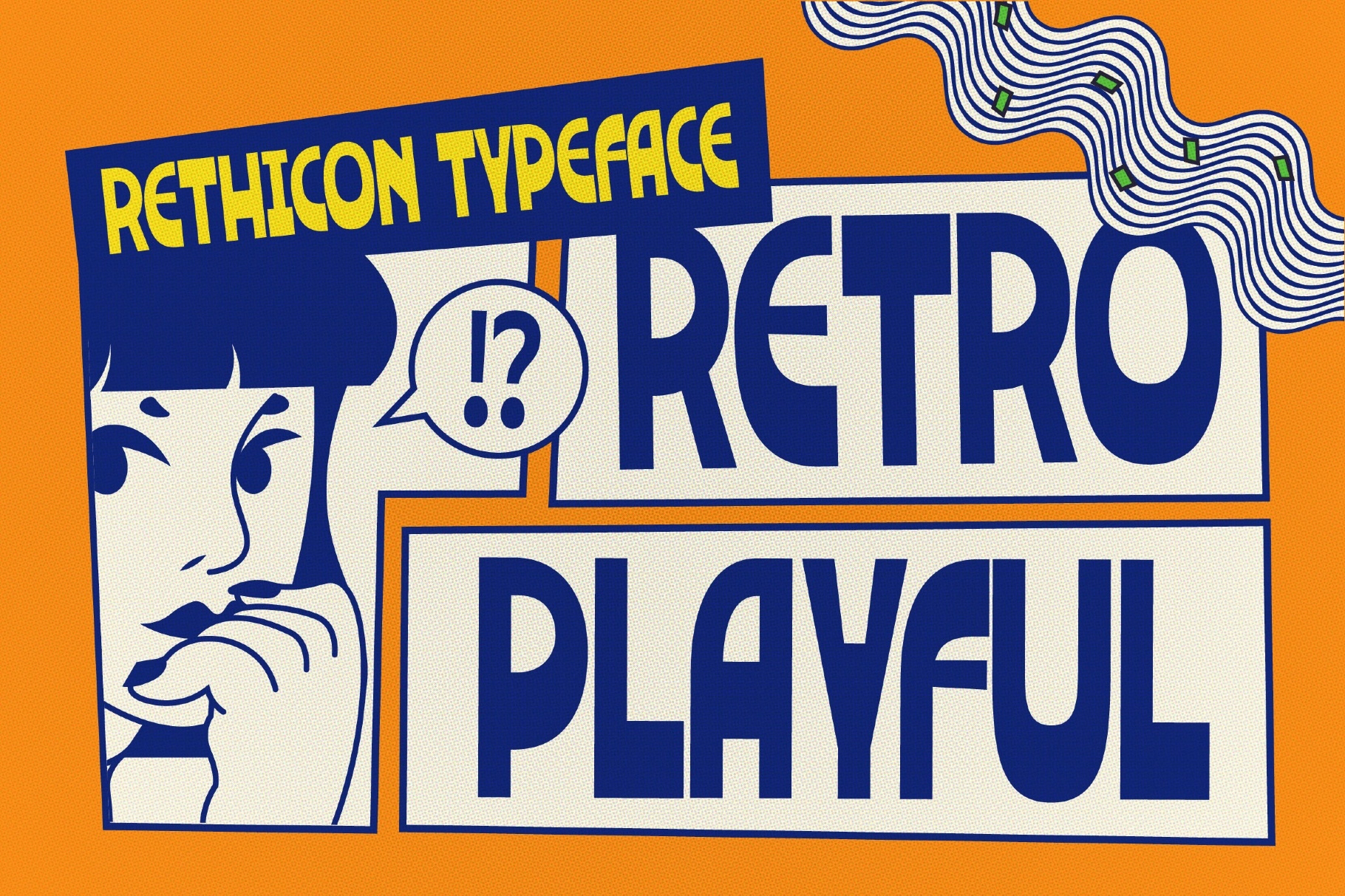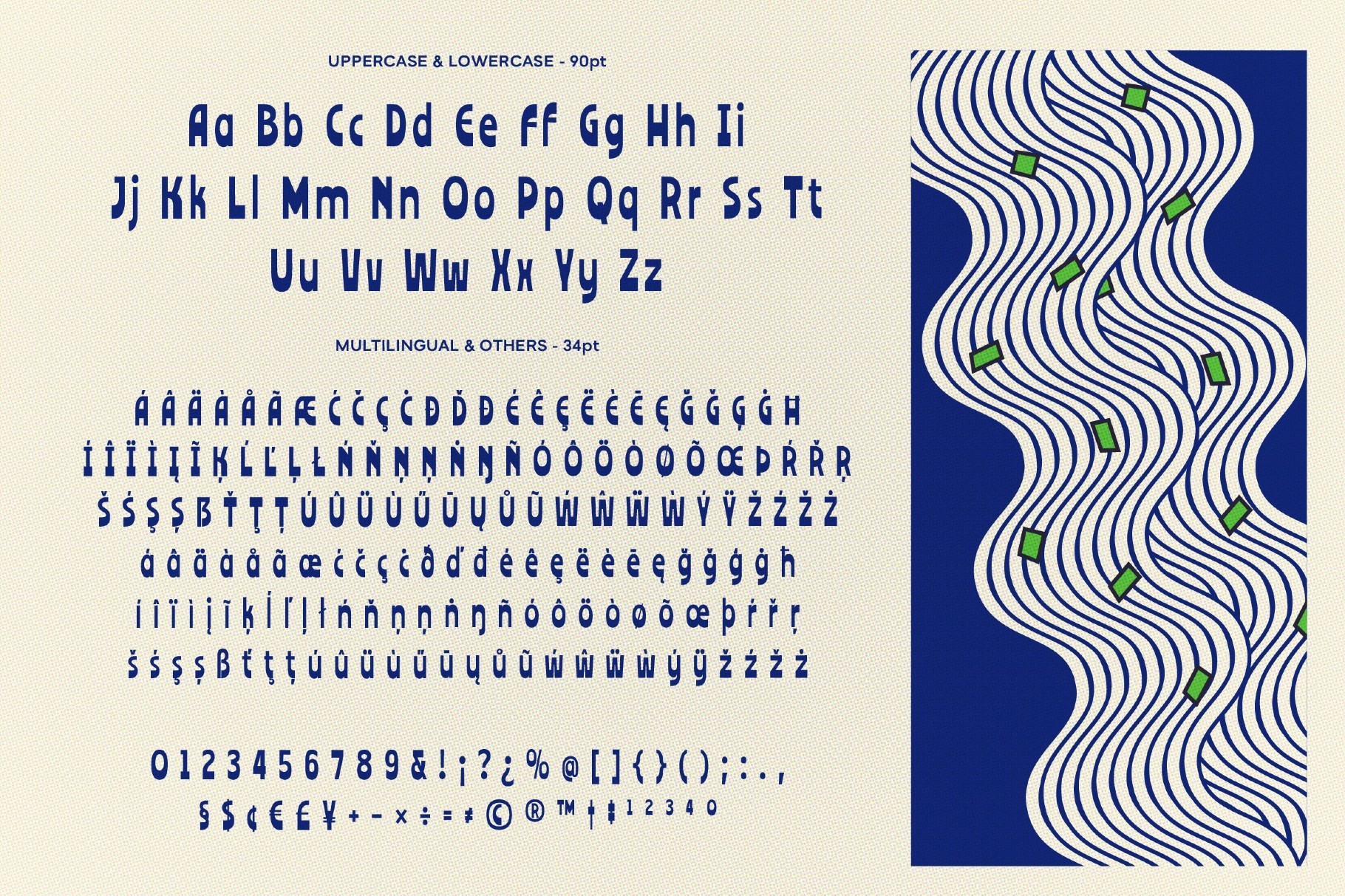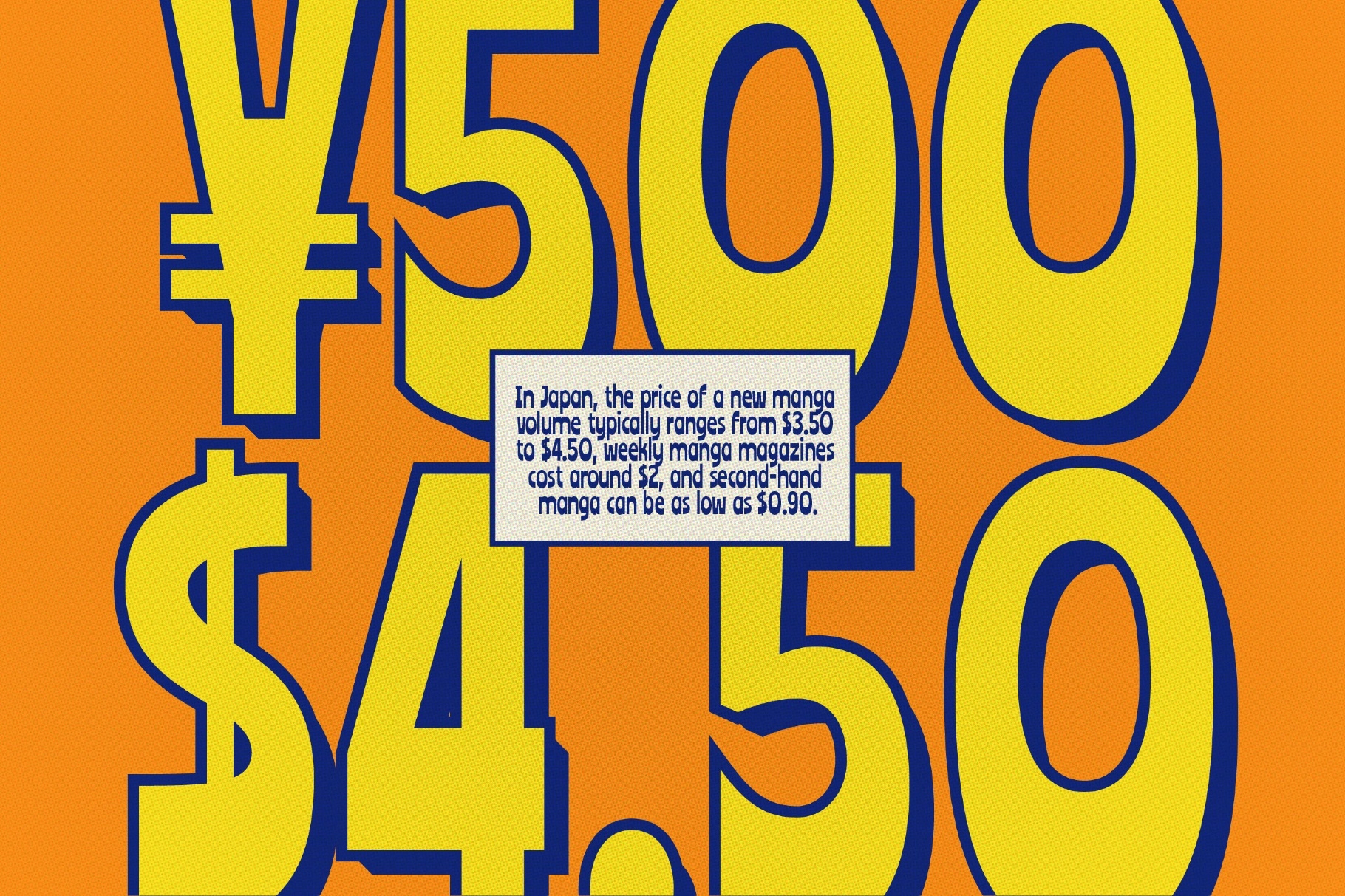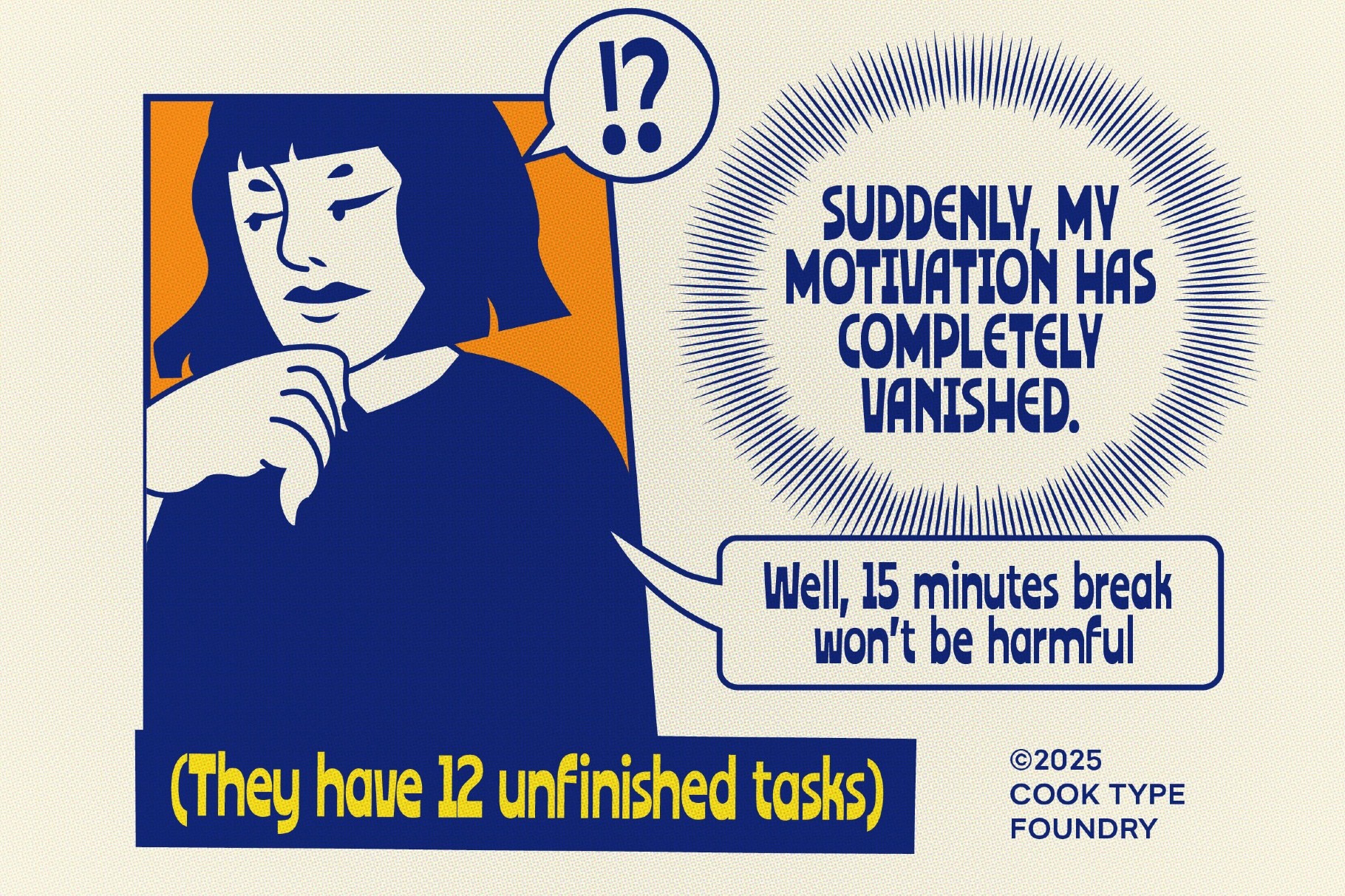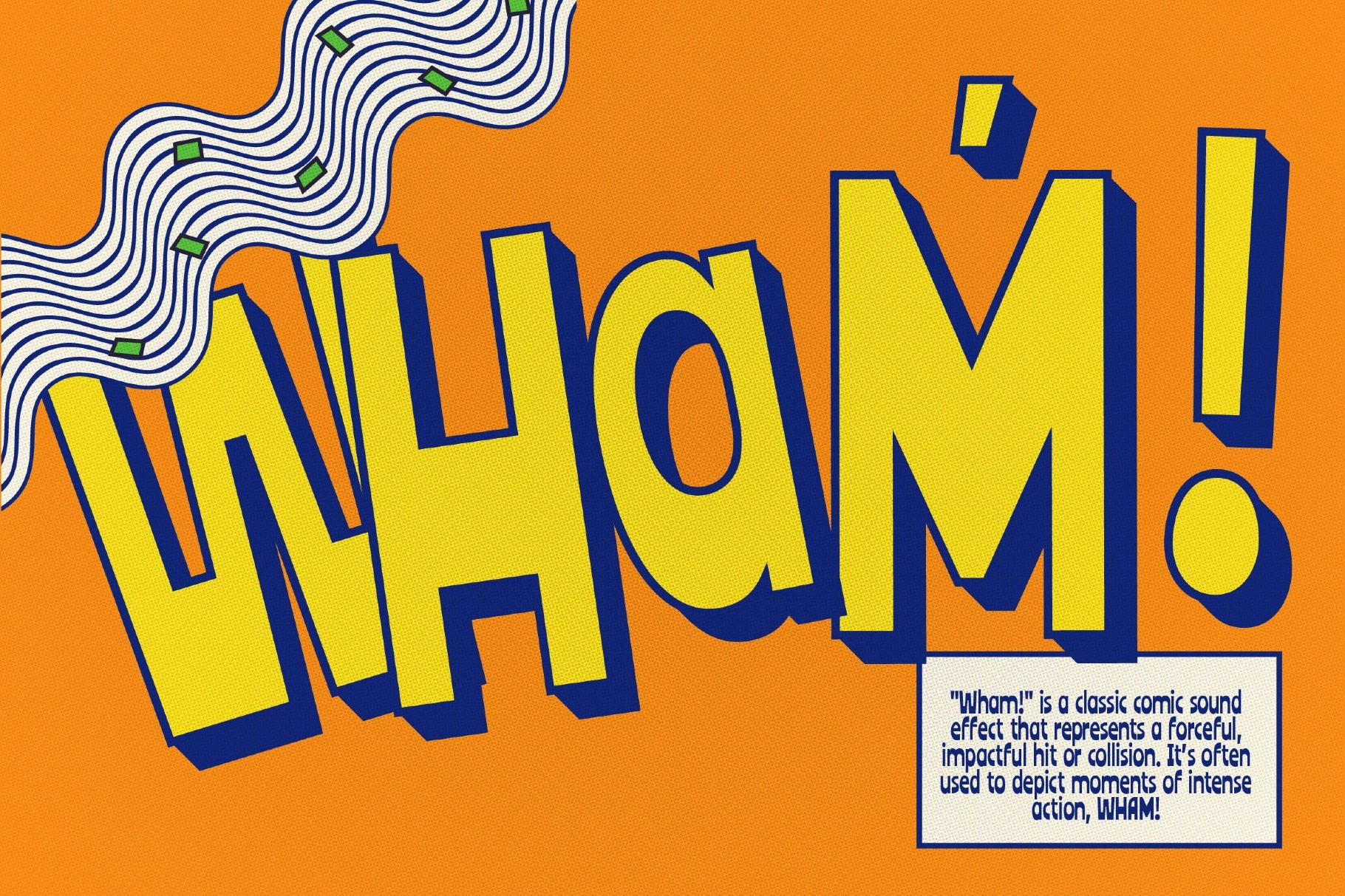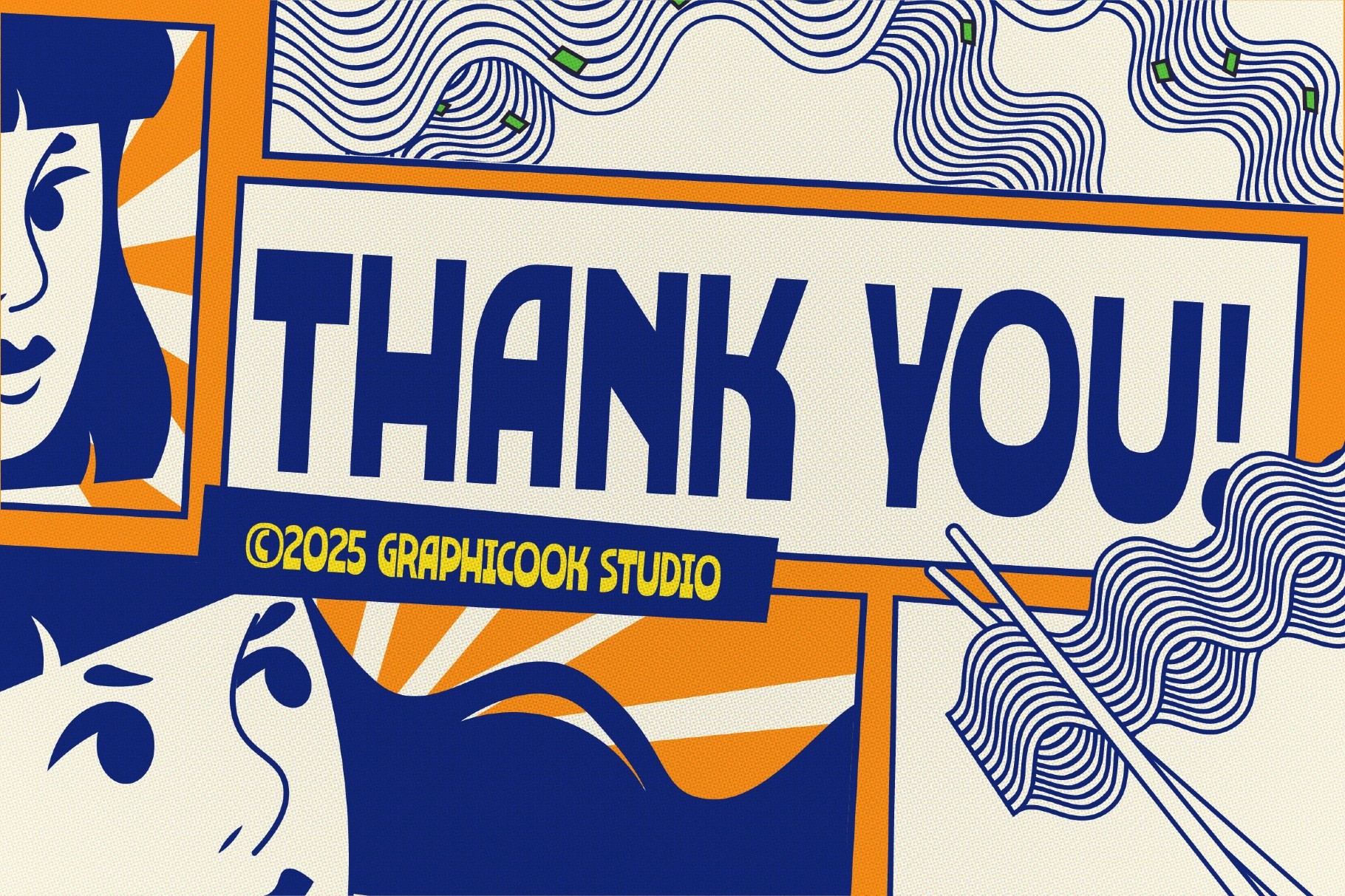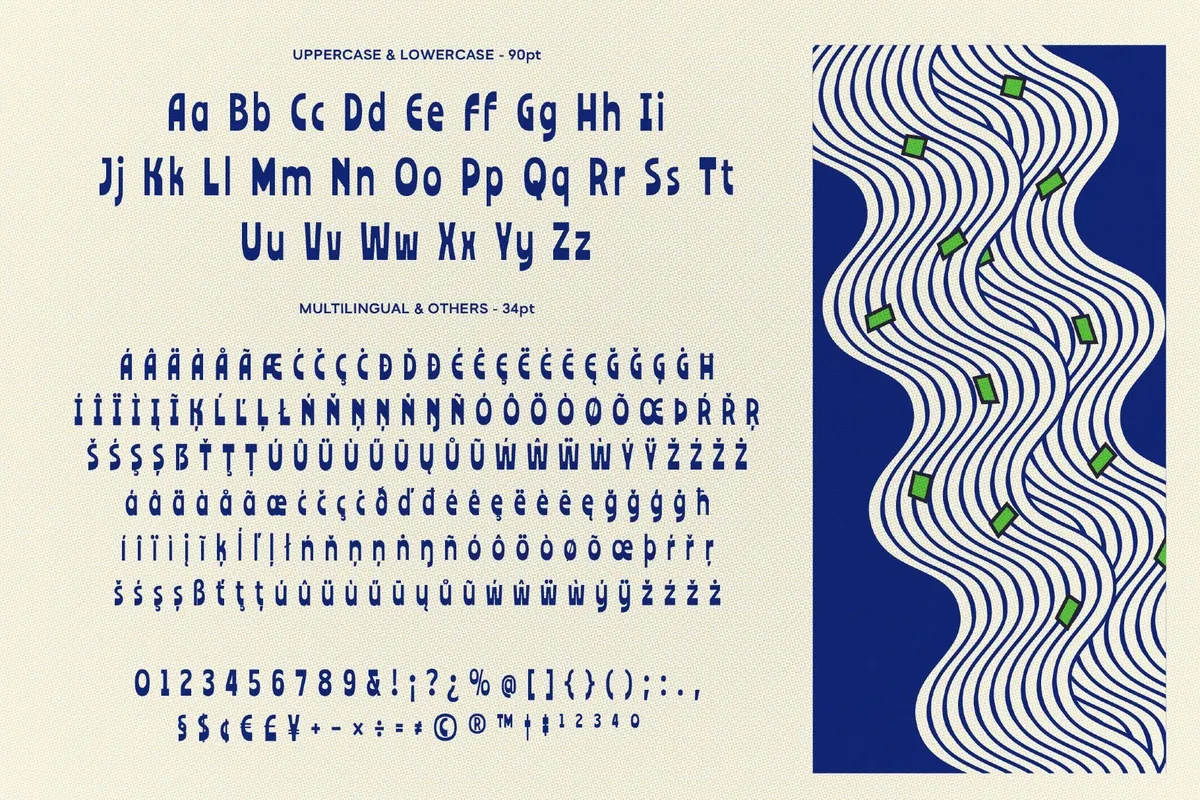
Rethicon Retro-Styled Font
Rethicon
Rethicon is a retro-styled font with a unique, playful character. Its organic, non-rigid shapes give off an energetic vibe, making it great for posters, logos, packaging, or any design that aims to stand out with bold, unconventional charm.